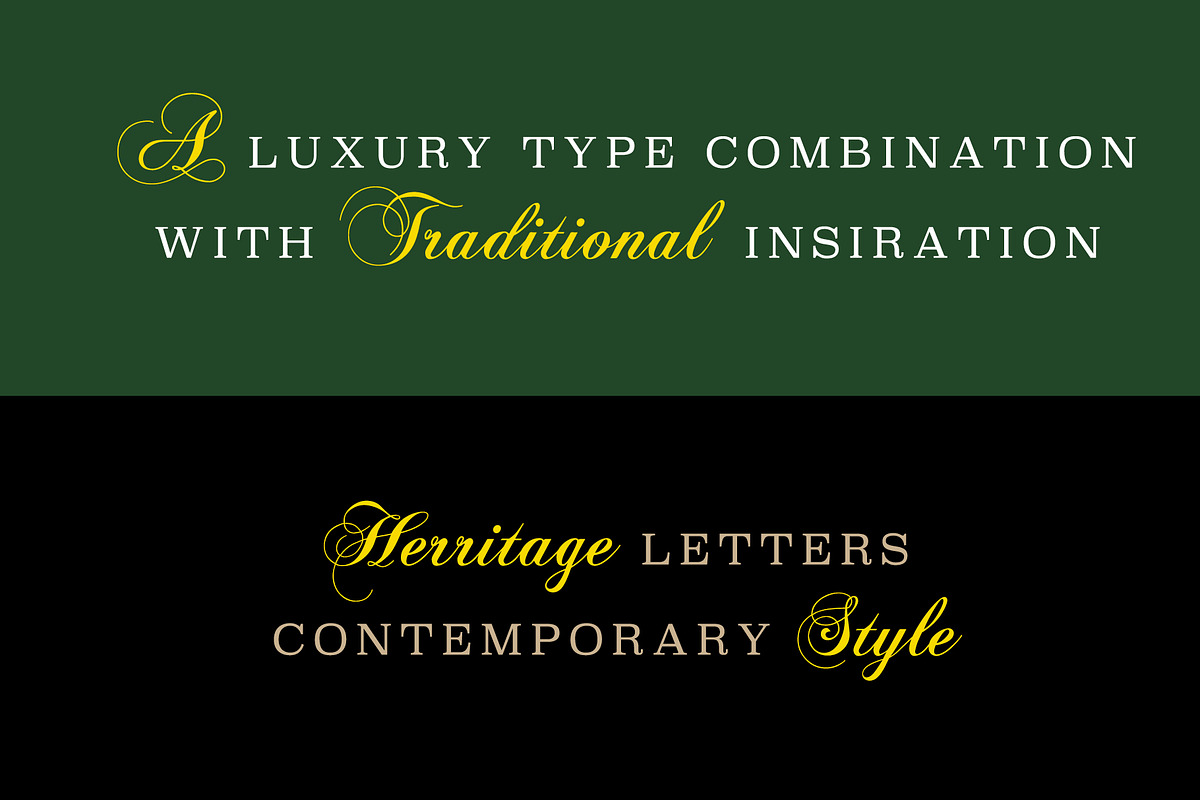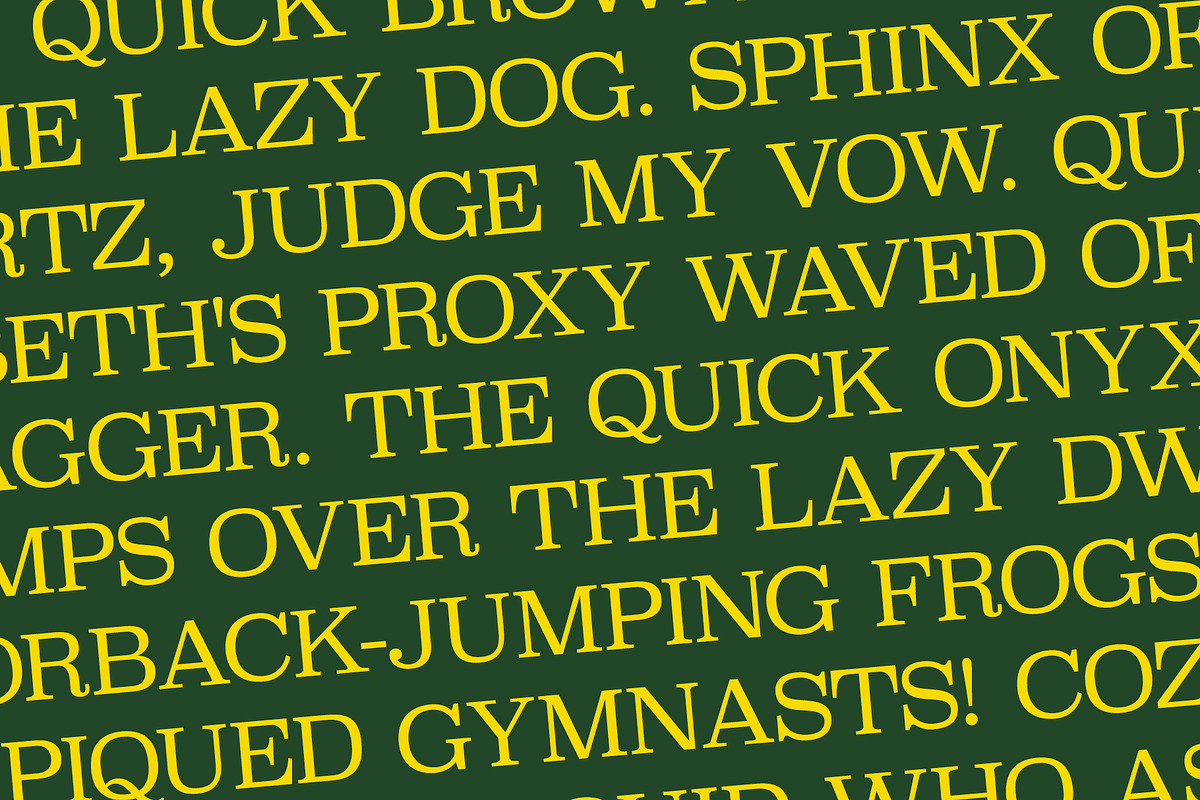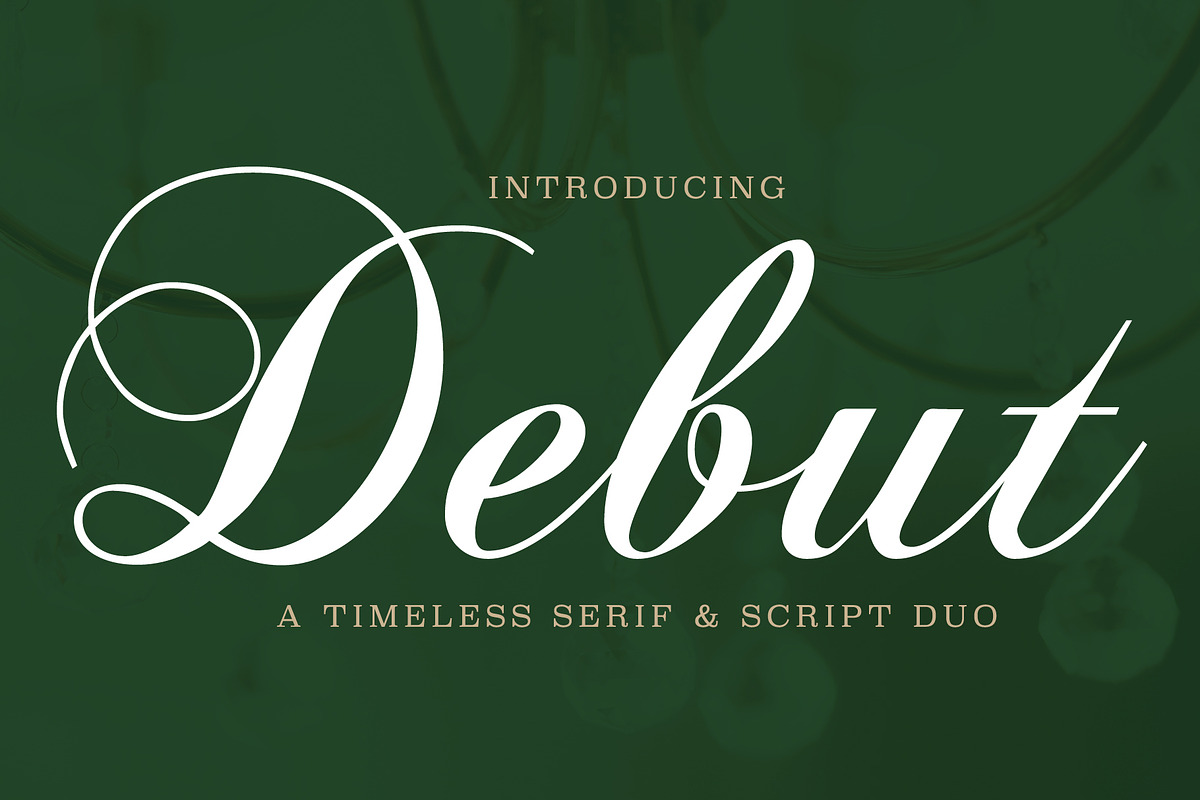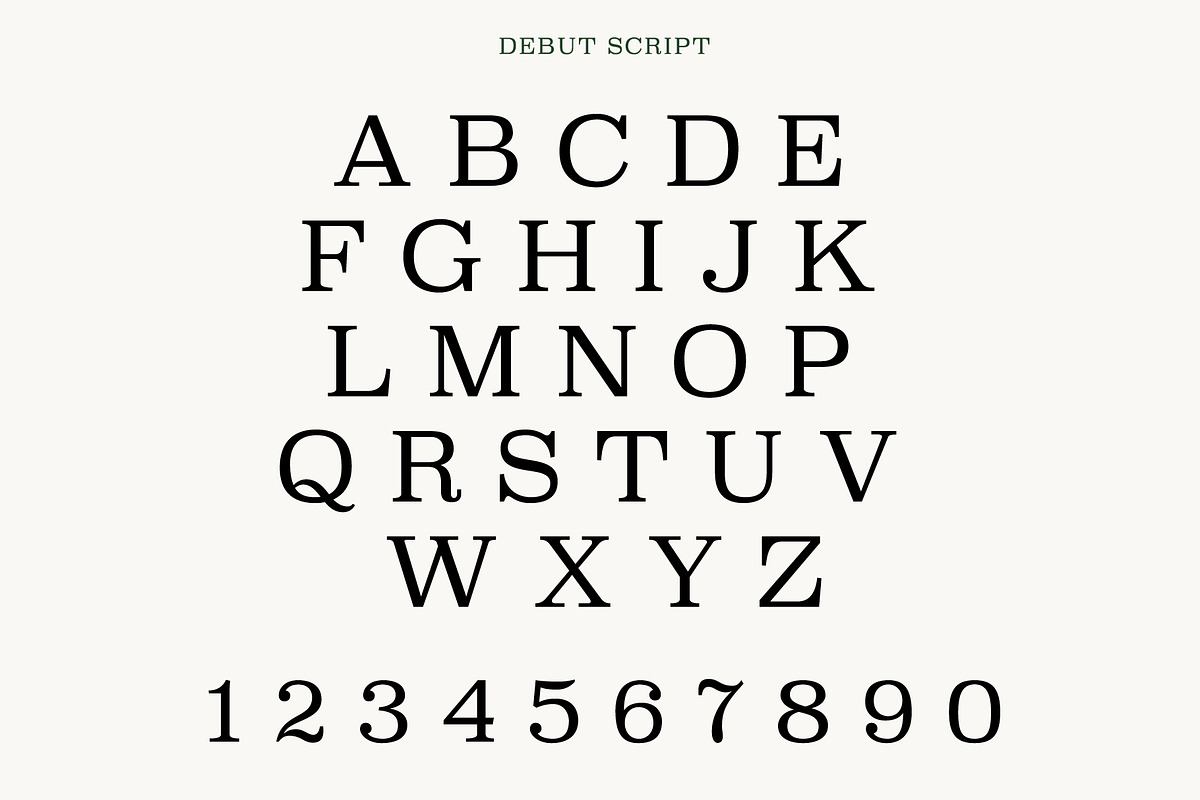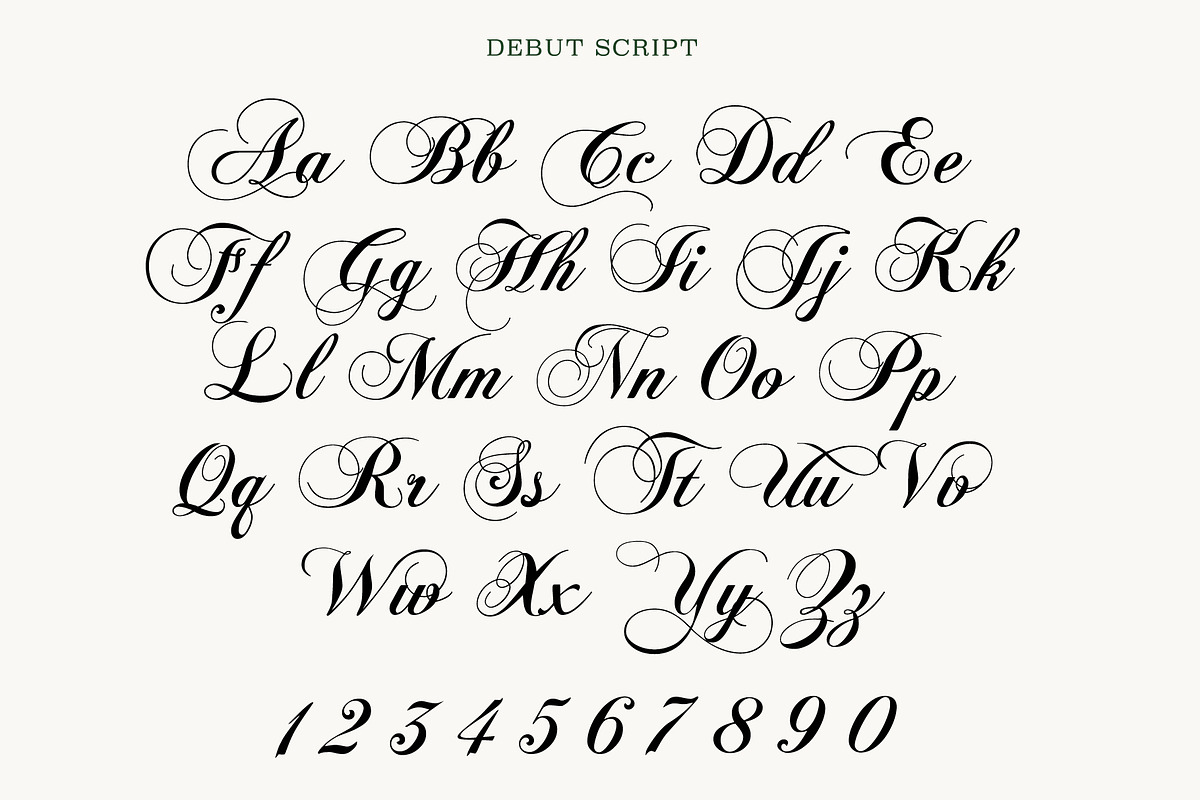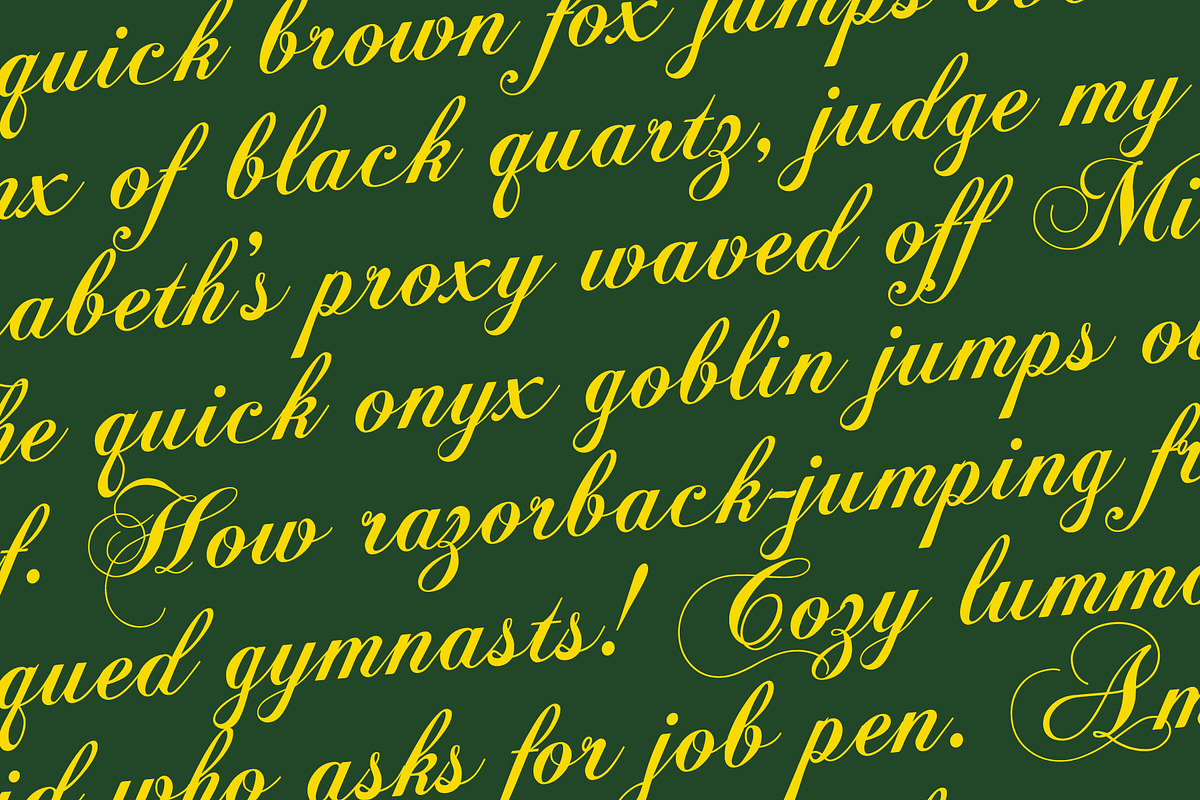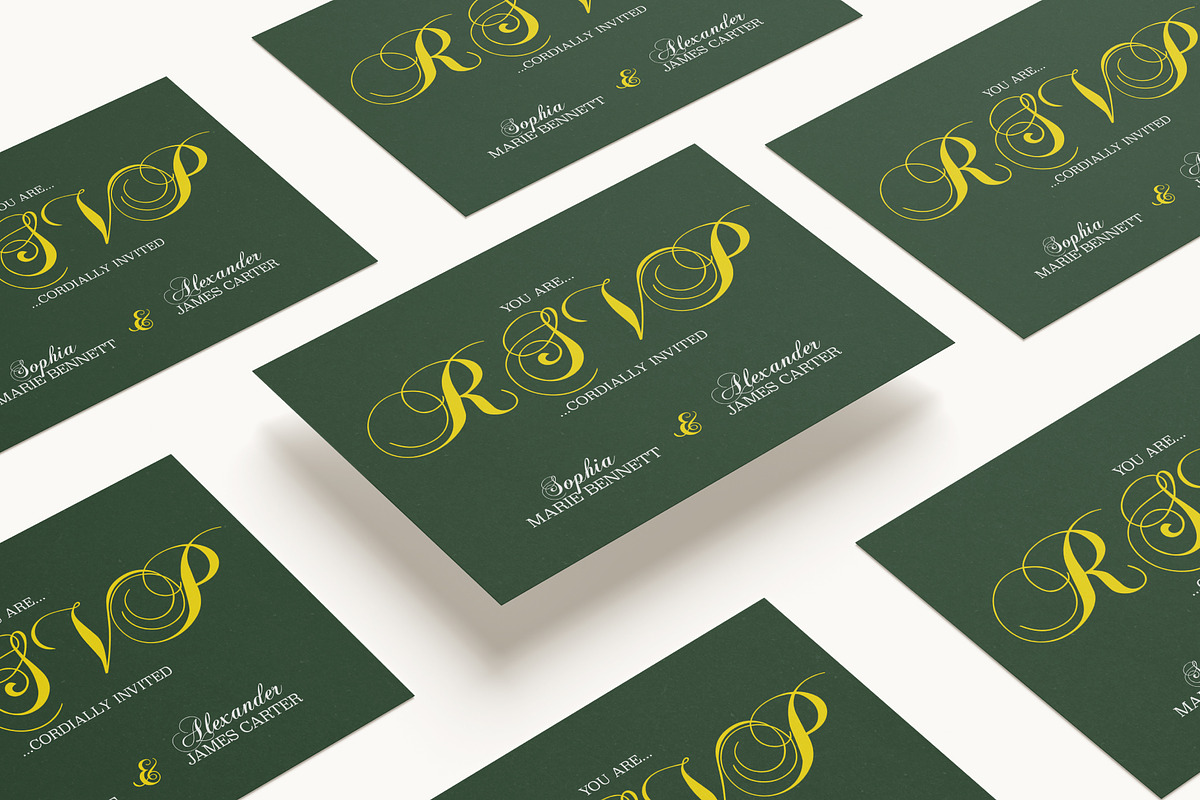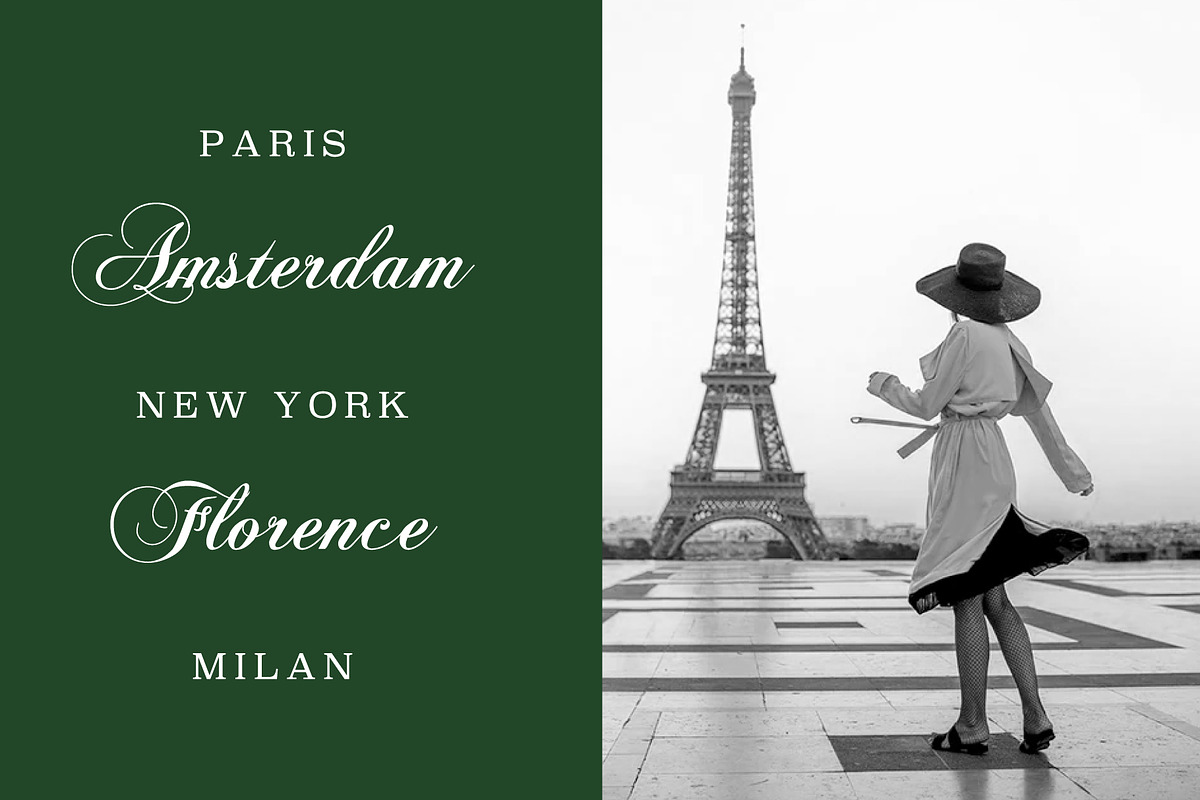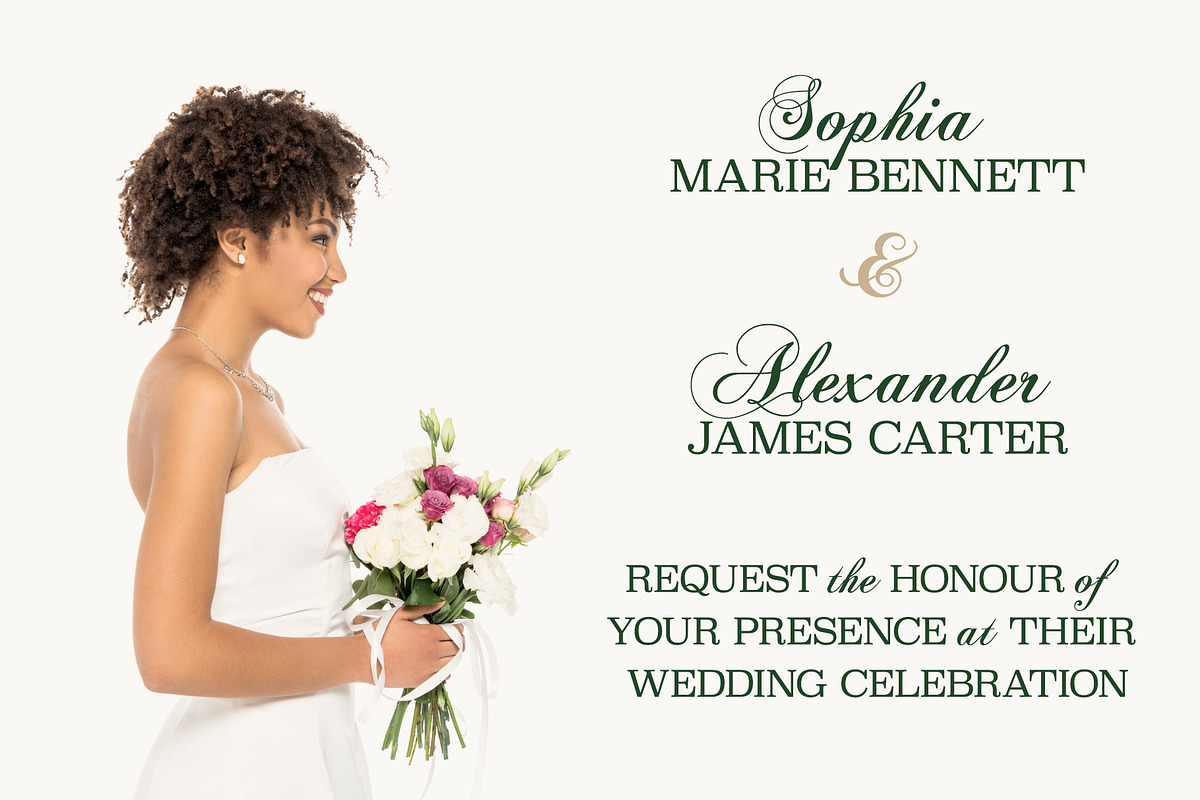
Debut - Serif & Script Duo
Debut is a refined serif and script typeface pairing designed for timeless elegance. With its poised contrast between structured capitals and flowing calligraphic forms, Debut captures both heritage and modernity in a single duo. Perfect for wedding invitations, fashion branding, editorials, and high-end packaging, this type family balances classic sophistication with a handcrafted touch. Whether set in bold headlines or delicate flourishes, Debut elevates design work with effortless grace and enduring style.